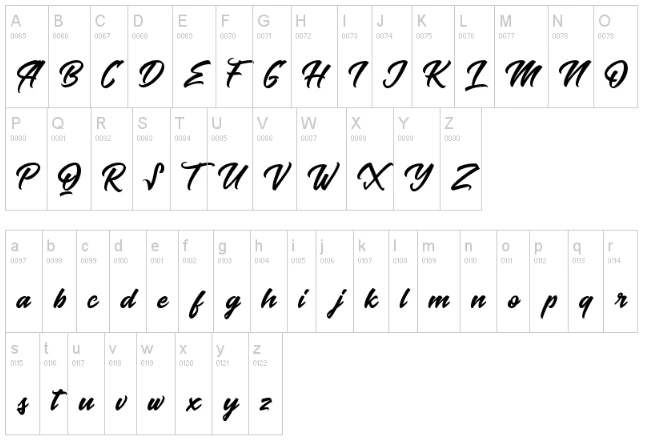
Baksoda Script Font is now available! Wacaksara Co. designed and shared Baksoda, a premium font that is offered on Creativemarket, but it was so good that it is now free for personal use. Baksoda includes uppercase, lowercase, numerals, punctuations, and a plethora of character variations, including OpenType alternates, standard ligatures, and more swash to allow you to personalize your designs. The Font comes in two different formats: TTF and OTF.
Baksoda is a hand lettering script font with a clear design and dramatic movement. It’s ideal for logos, printed quotes, invitations, cards, product packaging, headers, Logotype, Letterhead, Poster, Apparel Design, Labels, and other creative projects. The font is also ideal for creating trip blogs or videos.